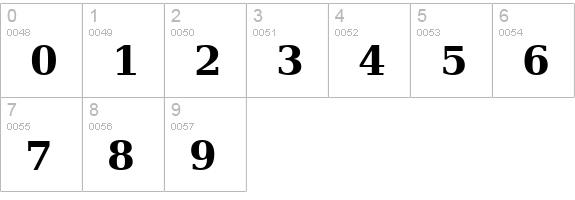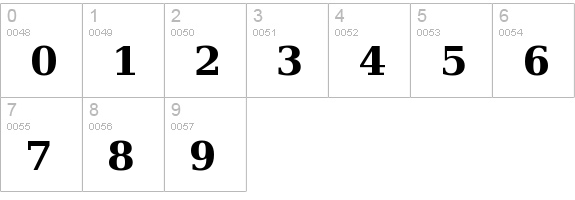
ae_Mashq Bold is a strong, high-contrast variant in the ae_Mashq typeface family \xE2\x80\x94 well suited to headlines, attention-grabbing titles, and strong calls-to-action.
ae_Mashq Bold font is a stylish and modern typeface that exudes confidence and sophistication. With its bold and eye-catching design, this font is perfect for creating impactful headlines, titles, and branding materials. The strong and dynamic letterforms of ae_Mashq Bold make it ideal for projects that require a touch of elegance and flair. What makes ae_Mashq Bold even more appealing is that it is available for free download at FontsMarket.com. This means that you can easily access this font and use it in your design projects without any cost. Whether you are working on a personal project or a professional assignment, ae_Mashq Bold is a versatile font that will elevate your designs and make them stand out. Don't miss out on the opportunity to enhance your creative work with ae_Mashq Bold font. Download it for free at FontsMarket.com and add a touch of sophistication to your projects today.